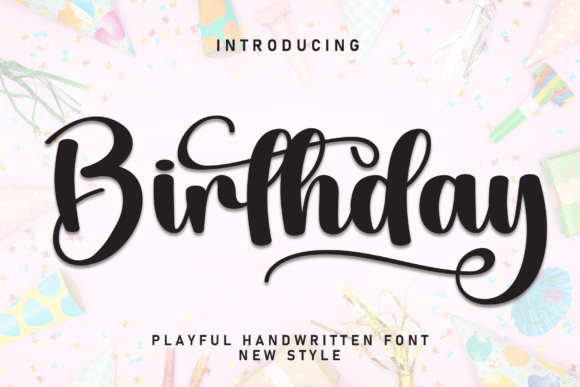
Happy Birthdays, Beautiful Designs!
As a designer, there’s no better feeling than seeing your creative vision come to life. Whether it’s a birthday invitation, a celebratory social media post, or a fun event flyer, you know that the right font can make all the difference. That’s where Birthday Font comes in – a bold, handwritten font that’s sure to put a smile on your face and your audience’s faces too.
With its thick, expressive strokes and casual, lively style, Birthday Font is the perfect addition to any design project that needs a fun and energetic vibe. Whether you’re a seasoned pro or just starting out, this versatile font is sure to bring a touch of excitement to your work. As a valuable tool for designers, Birthday Font offers endless possibilities for creating eye-catching and memorable designs that will make your audience feel celebrated.
Birthday Font Key Features
- Font Family: Birthday Font is a unique, hand-drawn font designed specifically for birthday celebrations and parties.
- Unique Characteristics: Features playful, cursive script with decorative flourishes, making it perfect for adding a personal touch to birthday-themed designs.
Birthday Font Review
As a designer, I was excited to dive into the Birthday Font and see what it has to offer. Here’s my honest take on this font.
- Cute and playful design that’s perfect for birthday invitations, cards, and party decorations.
- Clear and readable even at smaller font sizes.
- Comes in a variety of colors and styles to match different party themes.
- Not ideal for professional or formal projects due to its casual design.
- May not be suitable for projects that require a lot of text as it can be overwhelming.
- Some characters may not be available in all languages, which could be a limitation for global projects.
The Birthday Font is a great choice for anyone looking for a fun and playful font for their next birthday celebration. While it may have some limitations, it’s perfect for its intended use and can add a touch of whimsy to any project. I’d definitely recommend it for personal or social projects, but maybe not for more formal or professional work.
Some common use cases for the Birthday Font include creating birthday invitations, party decorations, and social media graphics. To get the most out of it, experiment with different font sizes, colors, and styles to match your design theme.
For a more dramatic effect, pair the Birthday Font with bold, colorful graphics and patterns. You can also use it to create a custom banner or title for your design.